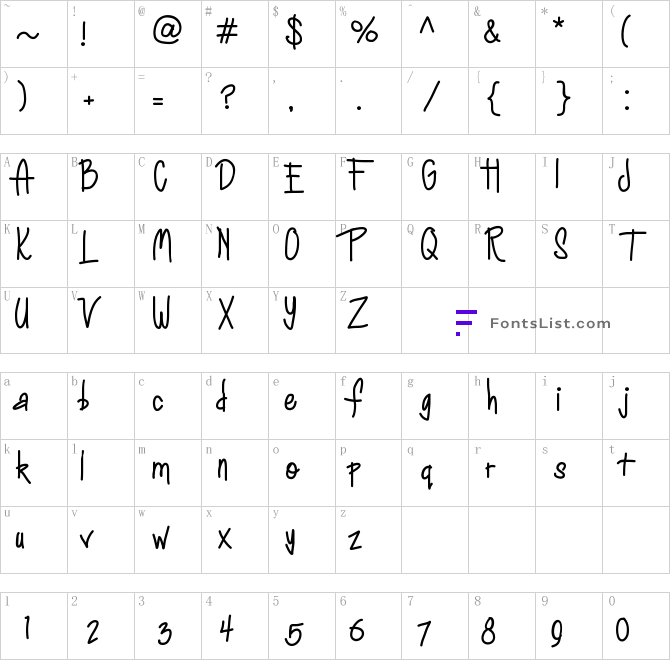
- Font Name:AniHappyDays
AniHappyDays.ttf is a very beautiful artistic font, AniHappyDays.ttf is widely used in the design and printing of various books and pictures,AniHappyDays.ttf has a strong visual impact,AniHappyDays.ttf is a commonly used font in newspapers, magazines and books, and is used in posters, e-commerce Poster design, store design, logo design, font design and other fields.AniHappyDays.